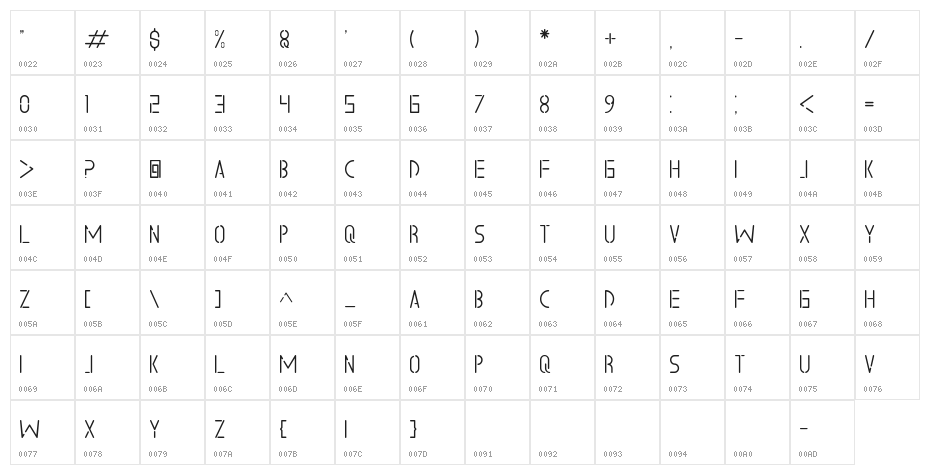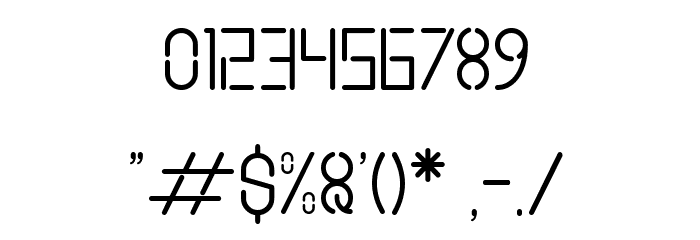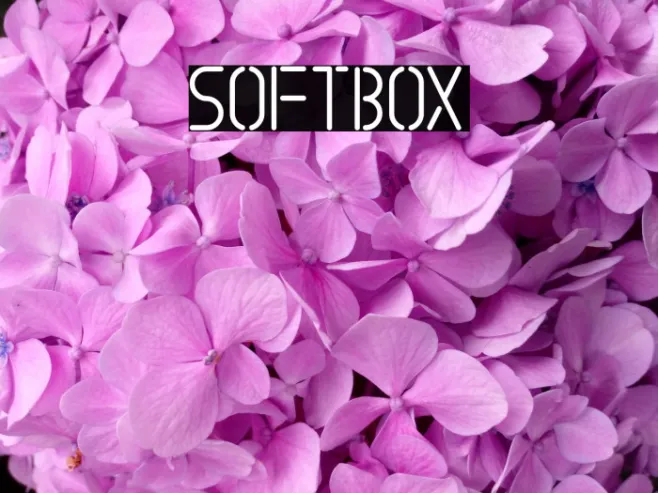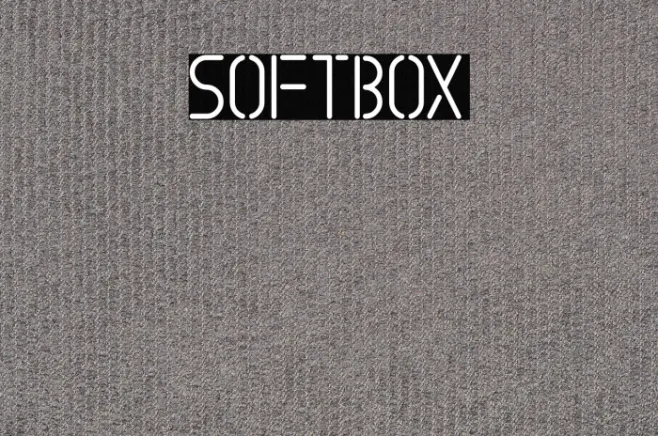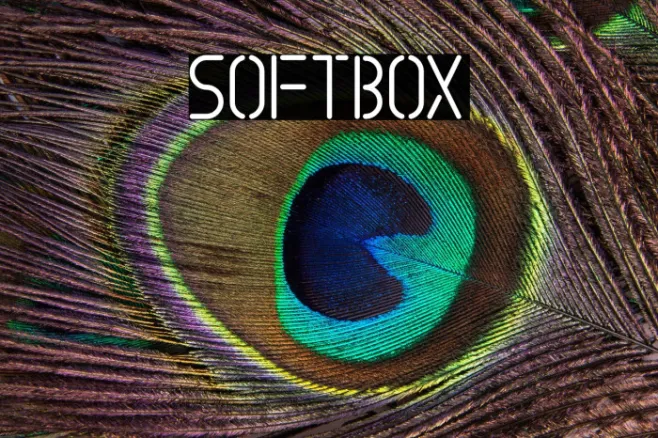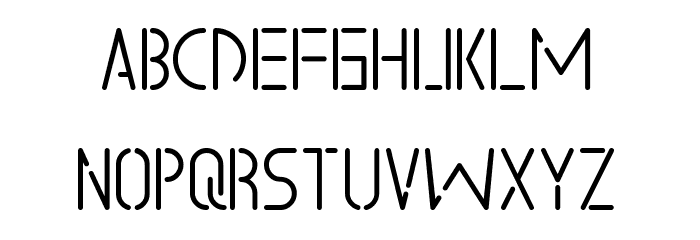
SOFTBOX Font
SOFTBOX Description
This font features a modern and geometric design with a unique stencil-like appearance. The characters are composed of clean, straight lines with consistent gaps, giving it a futuristic and technical feel. The uppercase and lowercase letters maintain a uniform height, contributing to a cohesive look. The numerals and special characters are designed to match the overall style, ensuring versatility across various applications. The font's distinct style makes it ideal for projects that require a contemporary and innovative touch.
| Proposed Projects | Ideal for branding, technology-themed designs, posters, and digital interfaces. |